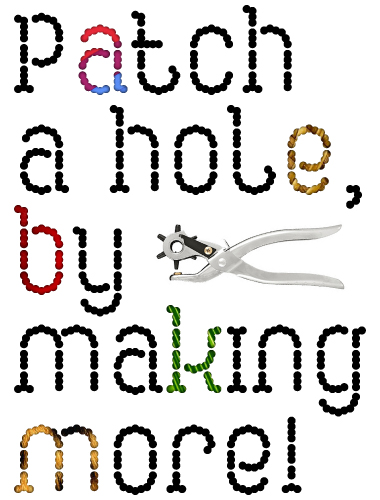
PunchOut
Cool idea! I love the a. Good lck with the competition.
9\10
Great font - beautiful samples. 10/10
Congratulations! FontStruct Staff have deemed your FontStruction worthy of special mention. “PunchOut” is now a Top Pick.